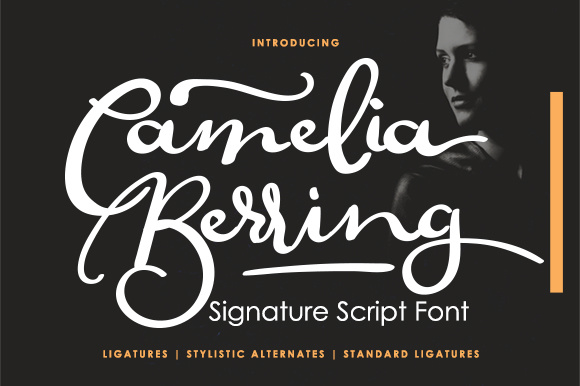
The Elusive Perfect Font: My Journey with Camelia Berring Script Font
Ah, the perfect font – a designer’s holy grail. I’ve lost count of how many projects I’ve worked on, only to get stuck on that one crucial element: the font. My client wants something elegant, yet playful; something that screams creativity, yet whispers sophistication. Sound familiar? That’s when I stumbled upon Camelia Berring Script Font, and let me tell you, it was love at first sight! ✨
A Stunning Script Font: First Impressions
Camelia Berring is a stunning script font based on authentic hand-lettering. Its smooth, flowing characters immediately caught my attention. I was working on a branding project for a boutique bakery, and I needed a font that would convey warmth, friendliness, and a touch of whimsy. Camelia Berring fit the bill perfectly.
• 💫 Smooth, flowing characters that dance across the page
• 🎨 Beautifully crafted with a clear attention to detail
• 🌈 Versatile and works well for a variety of design projects, from branding to invitations
While Camelia Berring is an amazing font, it’s not without its quirks. ⚠️ For example, some of the longer words or phrases can get a bit messy, especially when using the script alternates. But, with a little creativity and experimentation, you can easily work around this limitation.
🤔 Another thing to keep in mind is that, like many script fonts, Camelia Berring can be a bit overpowering when paired with bold or sans-serif fonts. So, be mindful of your font pairings to ensure harmony in your design.
The Story Behind Camelia Berring
Camelia Berring was designed with love and care by a talented type designer who wanted to create a font that captured the essence of authentic hand-lettering. With its smooth, flowing characters, Camelia Berring is the perfect blend of elegance and playfulness.
Q: Is Camelia Berring suitable for body text?
A: While Camelia Berring is a beautiful font, it’s best suited for headlines, titles, and short paragraphs. For longer body text, you may want to choose a more traditional serif or sans-serif font.